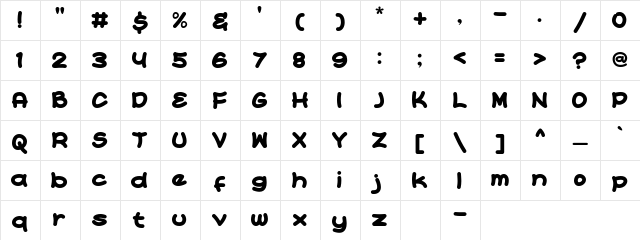
CARTOONIC Regular
| Designer | ZetDesign (Ahmad Zulfikar Ali) |
Design Context for CARTOONIC Typeface
CARTOONIC trades formality for fun, with bouncy, characterful letterforms that bring warmth and energy to any project.